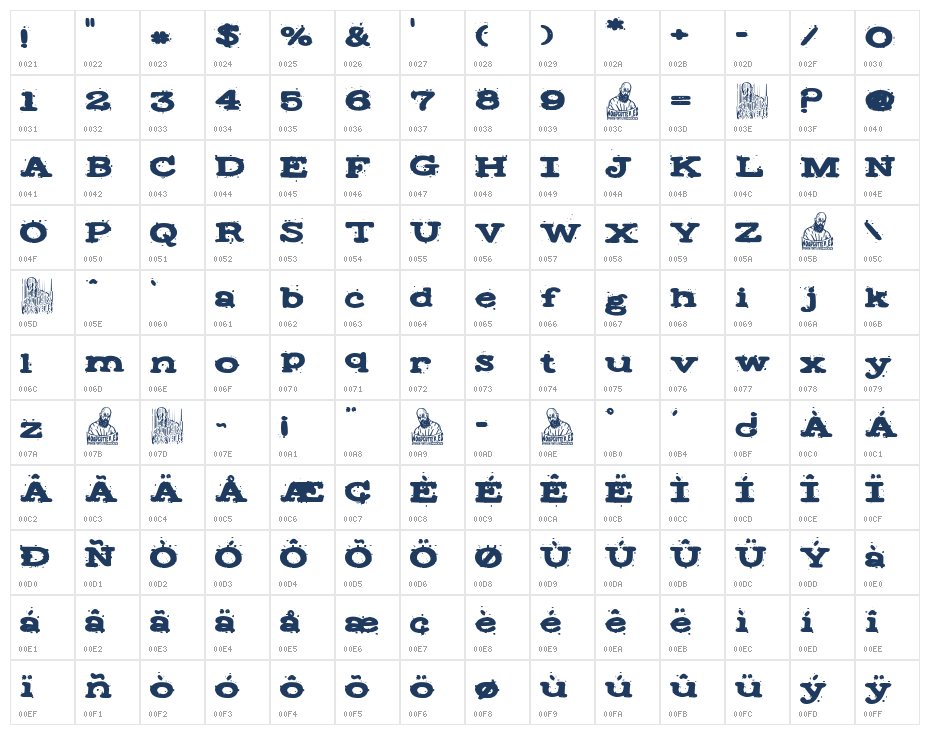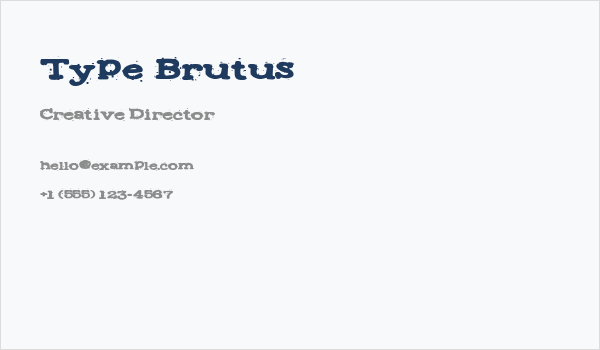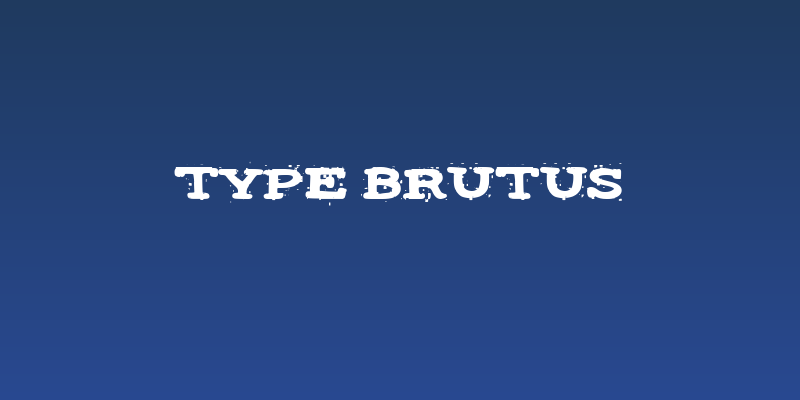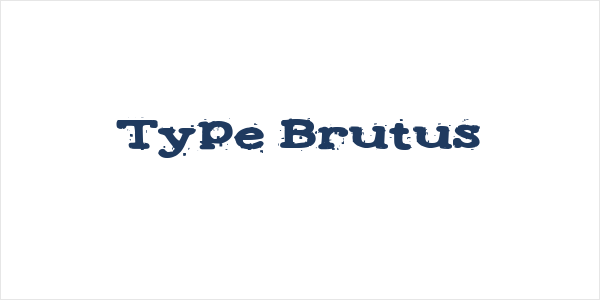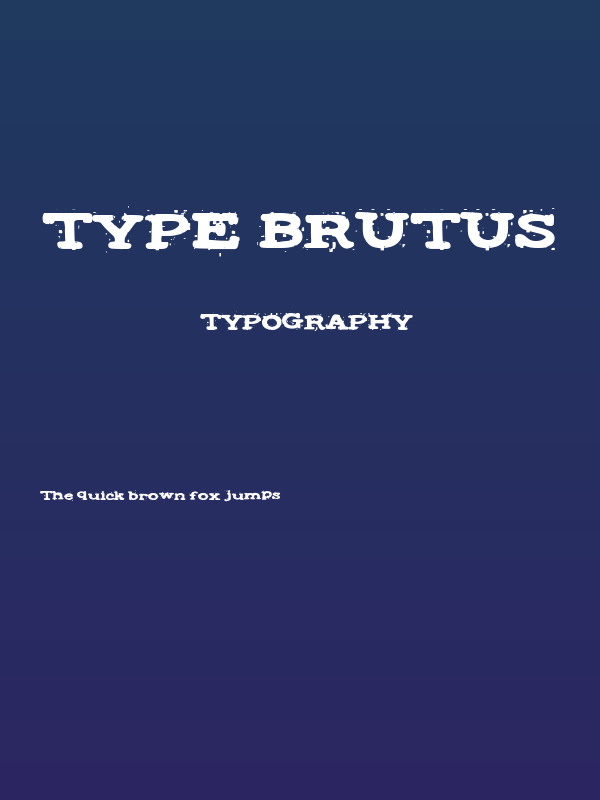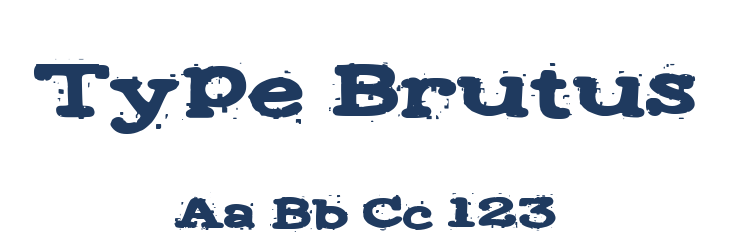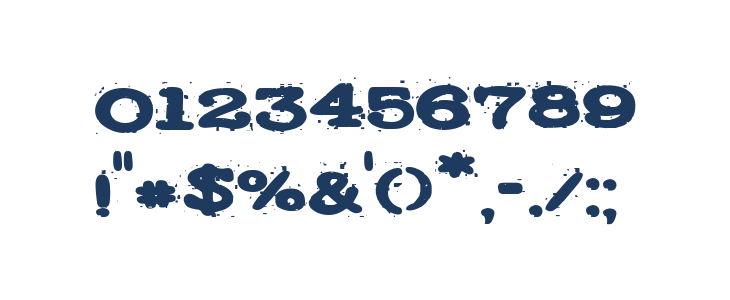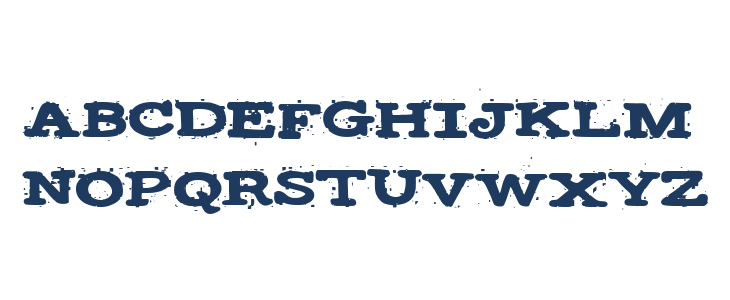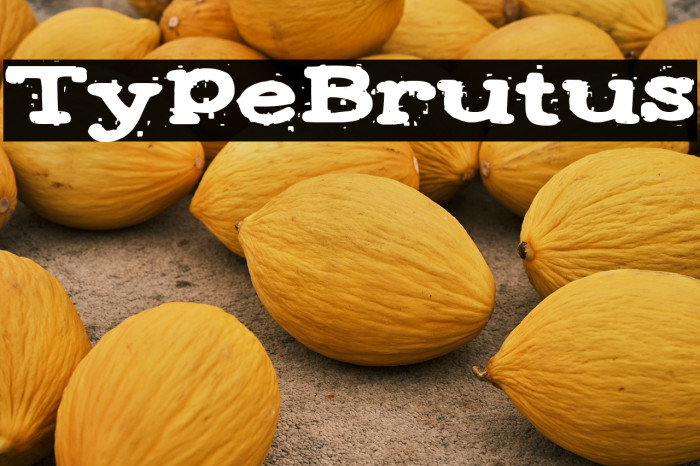
Type Brutus Font
Type Brutus Description
A bold, distressed, grunge-style font with a textured, worn appearance, featuring uppercase and lowercase letters, numbers, and special characters.
| Overall Style | Vintage, Grunge, Retro |
| Use Case | Headlines, Posters, Logos, Packaging |